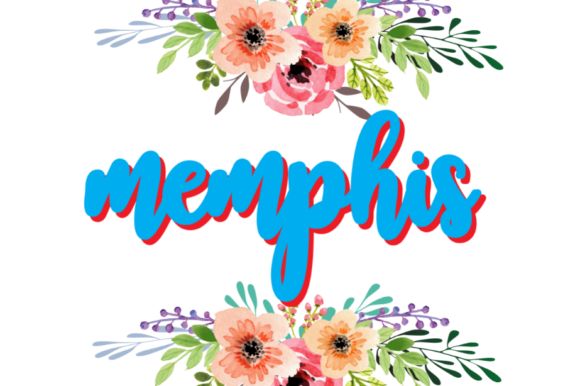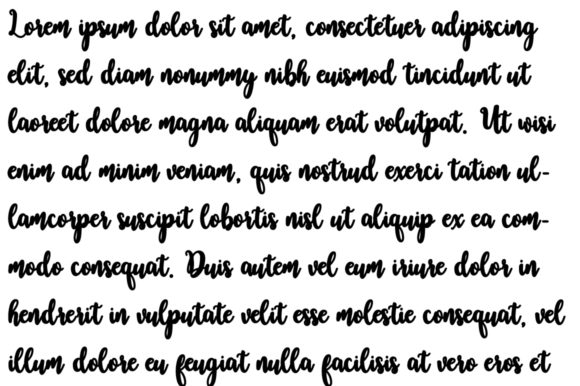
HomeScript FontsMemphis Font Script Fonts Memphis Font FacebookXPinterestWhatsApp Memphis Font Poster 2 About Memphis Font Memphis is a bold and unique handwritten font that is guaranteed to turn any design project into an eye catcher! DOWNLOAD NOW People also explored Fallujah Font Monogram Bogematic Font Let’s Cook Font Butter Font Astrofly Font Distracted Font Fellant Font Sweet Blues Font Levo Dope + Extras Font 310 0 TagsMemphis Font Previous articleShuntip Jan FontNext articleSontiquity Font LEAVE A REPLY Cancel reply Comment: Please enter your comment! Name:* Please enter your name here Email:* You have entered an incorrect email address! Please enter your email address here Website: Save my name, email, and website in this browser for the next time I comment. Personal Use Free Cretino Personal Use Free Read more about this font Folgore Personal Use Free Read more about this font Jellia Personal Use Free Read more about this font Avagan Personal Use Free Read more about this font BLOG Free vs Paid Fonts: Why Investing in Premium Fonts Is Worth It Free vs Paid Fonts: Why Premium Fonts Are Worth It in 2025 The debate of free vs paid fonts continues in the design world. While... Free Fonts Risk: Why Free Fonts Can Be Dangerous for Designers 5 Fonts That Will Dominate Design Trends in 2026 Top 10 Handwritten Fonts That Elevate Your Designs